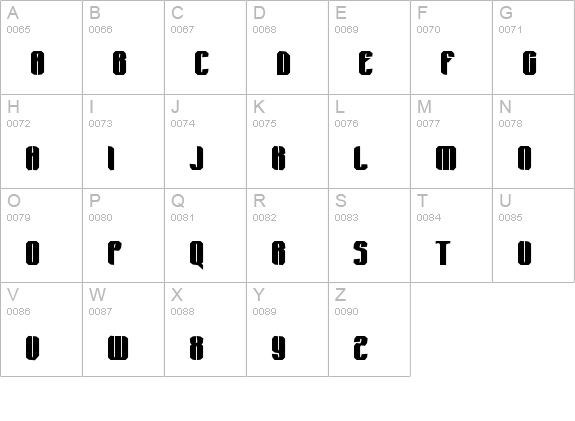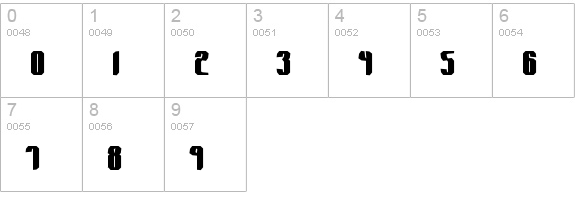
Wager Lost BRK Font Details
Introducing Wager Lost BRK, a captivating font that will leave a lasting impression on your audience. This unique and stylish typeface combines boldness with elegance, making it perfect for a wide range of design projects. With its sharp edges and distinctive letterforms, Wager Lost BRK exudes a sense of modernity and sophistication. Whether used in a logo, advertising campaign, or website design, this font will effortlessly capture attention and stand out from the crowd. But what makes Wager Lost BRK even more remarkable is that it is available for free! Yes, you read that right. You can freely download this extraordinary font at FontsMarket.com, a trusted source for high-quality and diverse font collections. By offering Wager Lost BRK for free, we aim to make exceptional typography accessible to everyone, regardless of their budget or design expertise. So go ahead and elevate your projects with this exceptional font, all without spending a dime. Don't miss this opportunity to add a touch of creativity and uniqueness to your designs. Download Wager Lost BRK now from FontsMarket.com and unlock a world of possibilities in your typography endeavors.